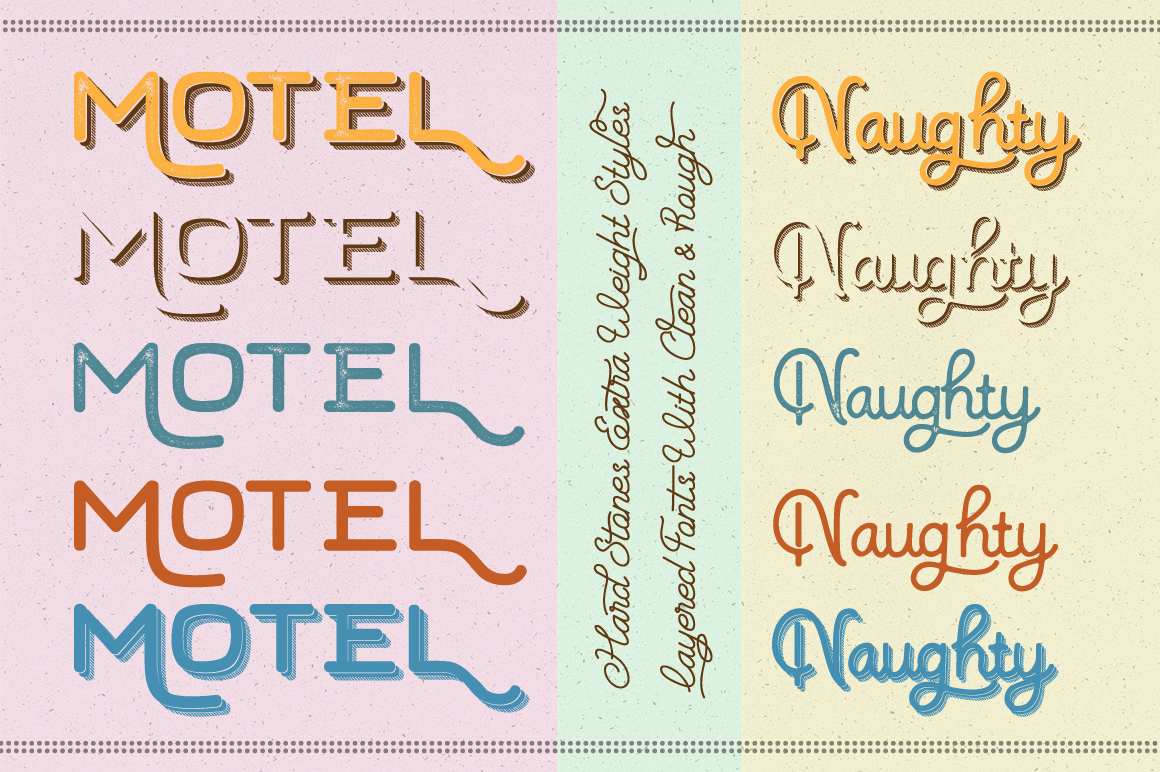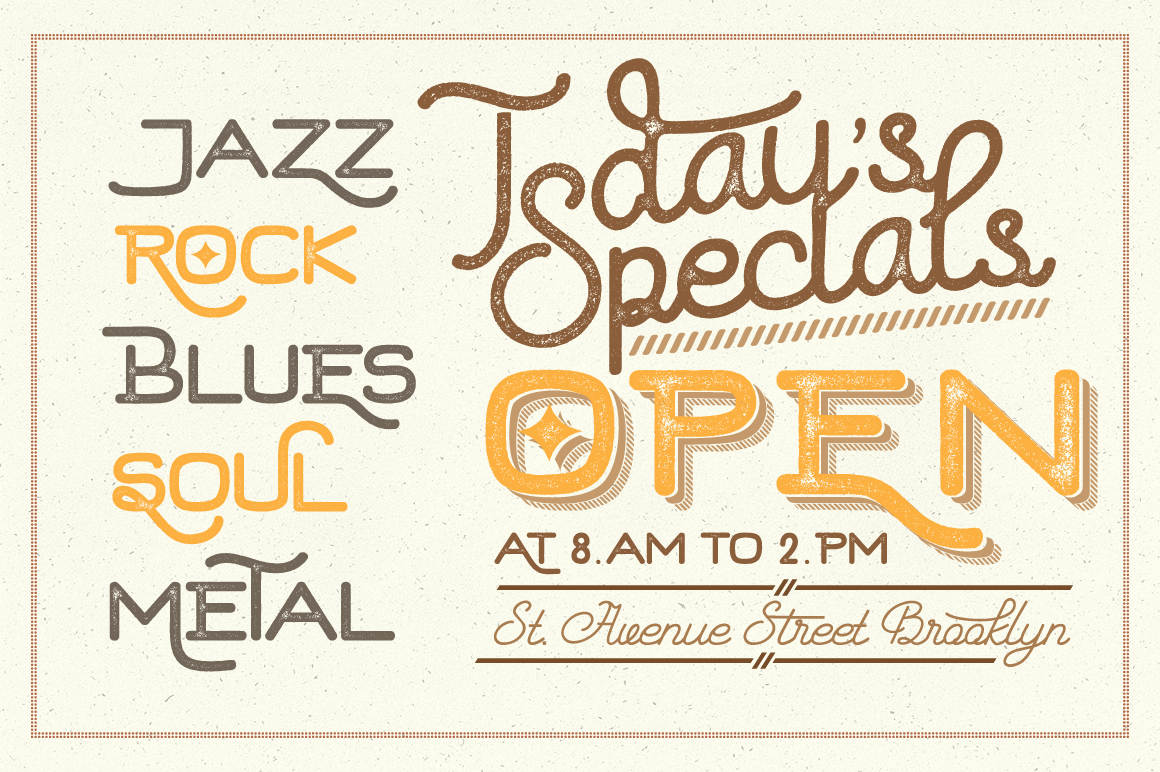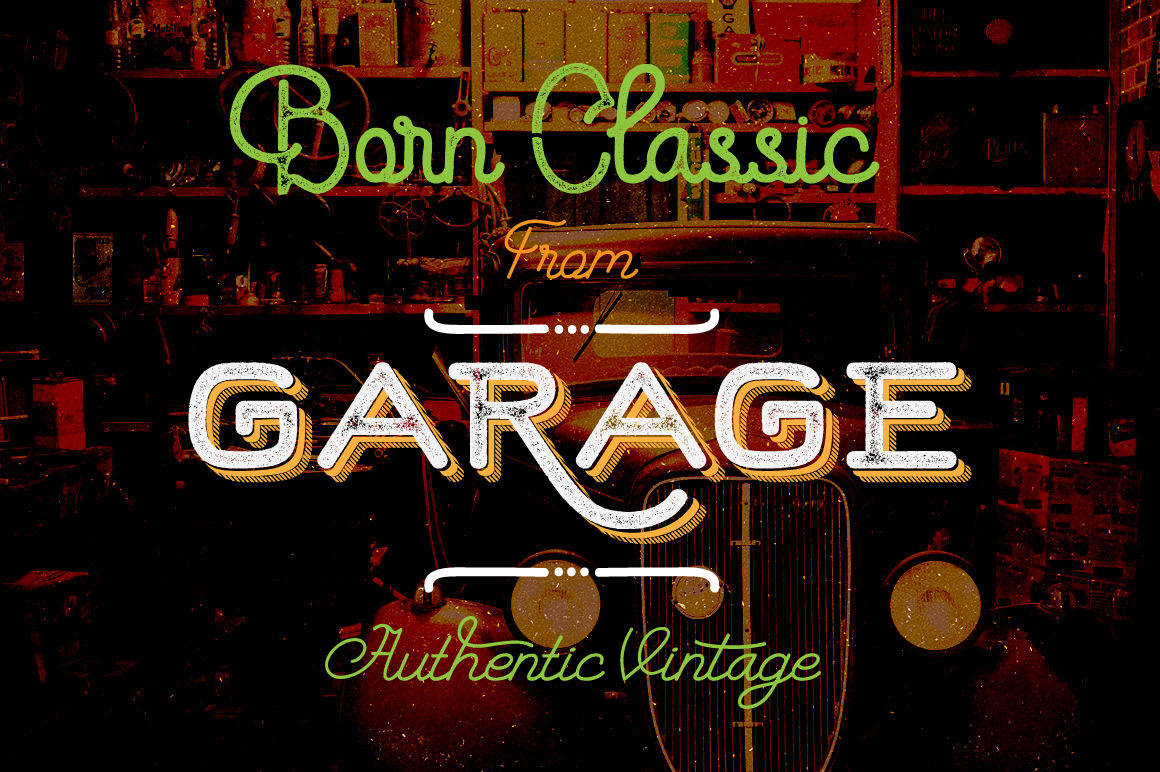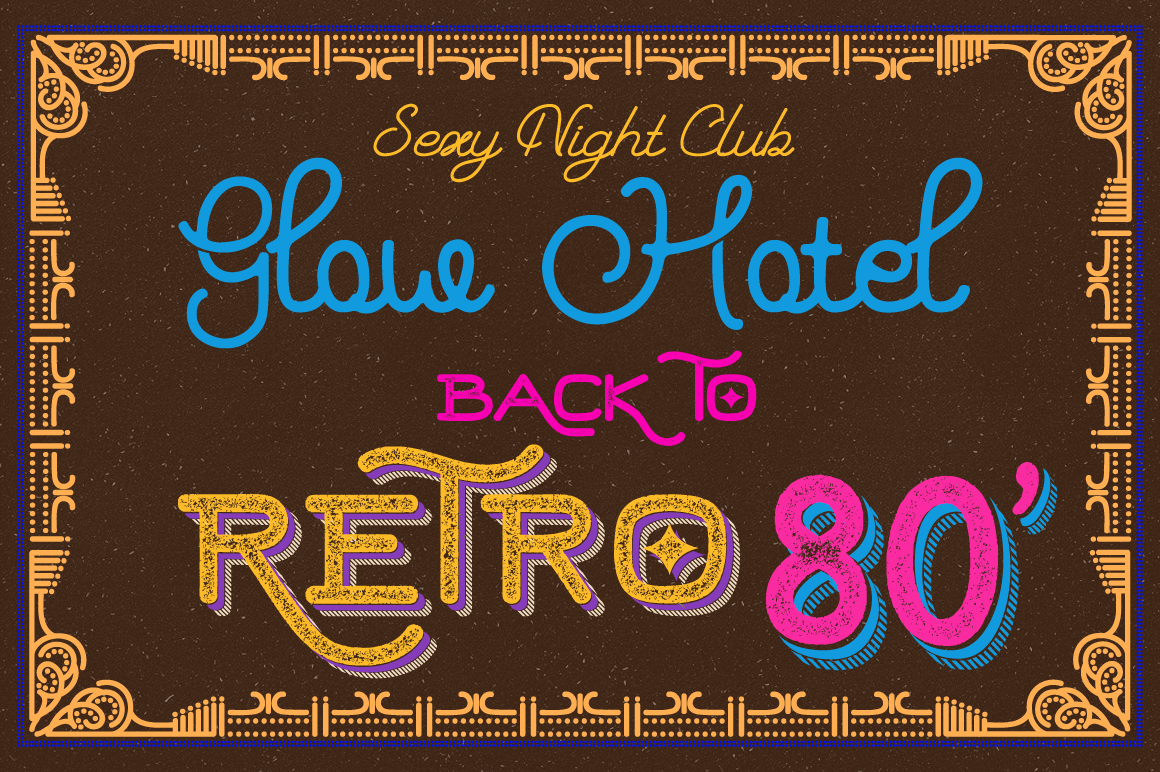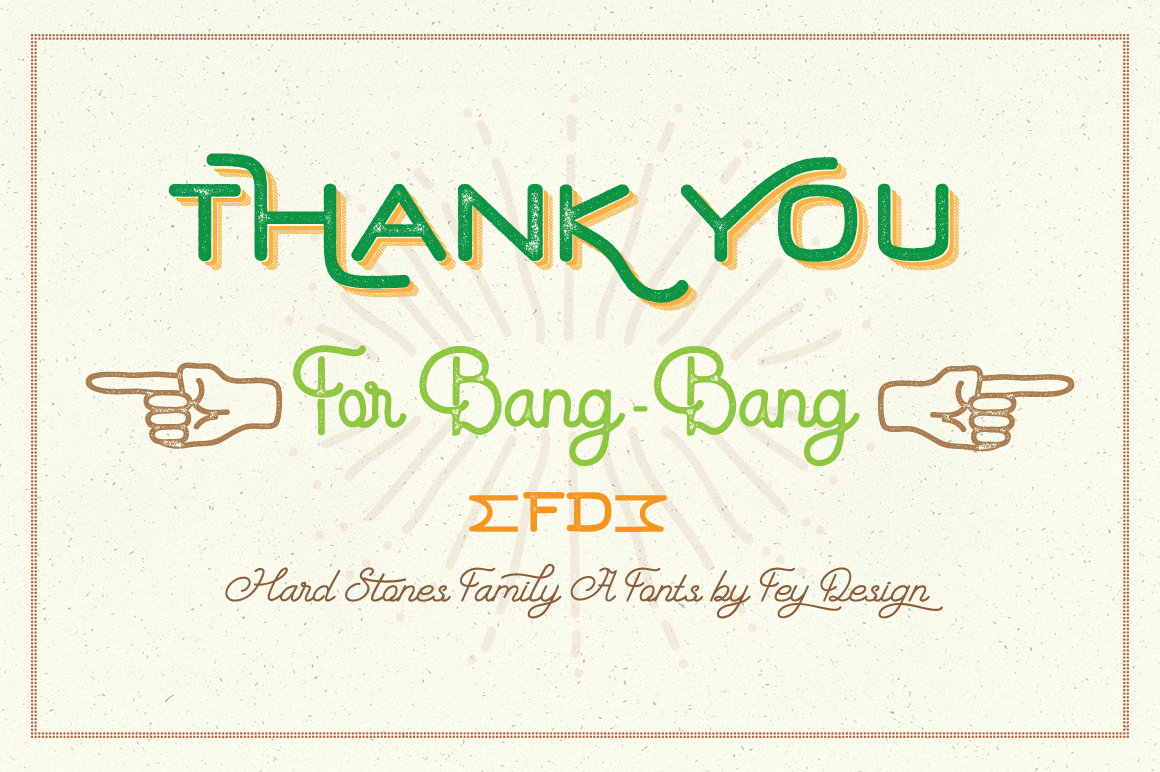
Introducing Hard Stones Font: Elevate Your Designs with a Retro, Vintage Appeal
Are you a designer or crafter looking to add a touch of nostalgia to your projects? Look no further than Hard Stones Font, a versatile font family that embodies the essence of retro and vintage styles. With its unique blend of classic charm and modern flexibility, Hard Stones Font is the perfect addition to your design toolkit.
The Retro, Vintage Appeal of Hard Stones Font
Hard Stones Font is designed to transport you back in time, evoking the spirit of bygone eras with its distinctive, vintage-inspired aesthetic. Whether you’re working on a branding project, crafting a logo, or creating engaging social media content, this font family provides the perfect foundation for adding a retro twist to your designs.
One of the standout features of Hard Stones Font is its extensive range of styles and finishes. This allows you to experiment with different treatments, tailoring your font choice to suit the specific needs of each project. From rustic, distressed textures to sleek, polished finishes, Hard Stones Font offers unparalleled flexibility, ensuring that your designs always stand out.
Key Features of Hard Stones Font
- Retro, Vintage Appeal: Infuse your designs with a nostalgic charm that captivates audiences and sets your work apart.
- Multiple Styles and Finishes: Choose from a variety of styles and finishes to match the tone and theme of your project.
- High Versatility: Suitable for a wide range of design applications, from branding and logos to social media graphics and craft projects.
Applications of Hard Stones Font
The versatility of Hard Stones Font makes it an excellent choice for various design projects. Here are some of the ways you can leverage this font family to elevate your work:
Branding and Logos
Create memorable brand identities with Hard Stones Font. Its vintage appeal can help your brand stand out in a crowded market, conveying a sense of heritage and authenticity that resonates with customers.
Social Media Graphics
Enhance your social media presence with eye-catching graphics that showcase your personality or brand. Hard Stones Font adds a unique touch to posts, stories, and banners, making your content more engaging and shareable.
Craft and DIY Projects
For crafters and DIY enthusiasts, Hard Stones Font offers endless possibilities. Use it to create custom signage, decorate journals, or add personalized touches to handmade cards and gifts.
Tips for Maximizing the Impact of Hard Stones Font
- Experiment with Styles: Don’t be afraid to try out different styles and finishes to find the perfect match for your project.
- Combine with Images: Pair Hard Stones Font with relevant images or graphics to create visually compelling compositions.
- Consider Context: Think about the context in which your design will be viewed and adjust the font style and size accordingly.
Hard Stones Font is more than just a font family – it’s a design tool that can transform your projects with its retro, vintage appeal. With its extensive range of styles and finishes, versatility, and ease of use, Hard Stones Font is an indispensable asset for designers and crafters looking to add a touch of nostalgia to their work. Explore the possibilities of Hard Stones Font today and discover how it can elevate your designs to new heights.